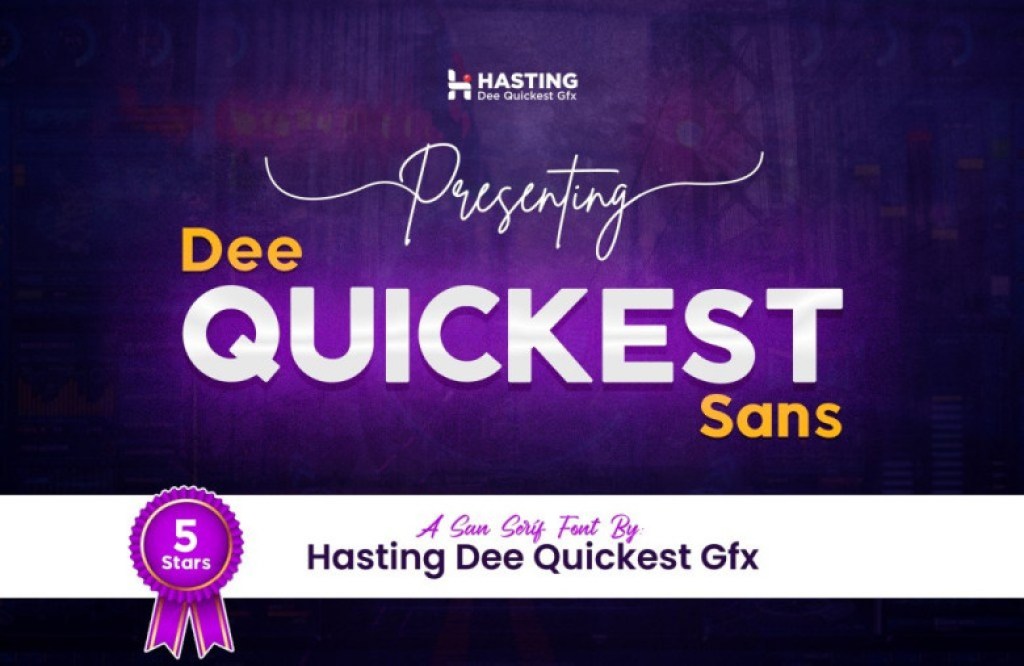
Dee Quickest Sans Font [1]
Dee Quickest Sans Font
Dee Quickest Sans embodies the pinnacle of modern typographic design, masterfully fusing razor-sharp precision with minimalist elegance. This sans-serif typeface is built on a foundation of geometric clarity and balanced proportions, resulting in exceptional legibility and a clean, sophisticated aesthetic. Its 'quick' nature refers to its dynamic, efficient letterforms that convey speed and intelligence, making it ideal for technology brands, financial institutions, contemporary editorial design, and user interface projects. Every glyph is meticulously crafted to ensure harmony and consistency, whether set at small sizes in dense paragraphs or large in impactful headlines. Choose Dee Quickest Sans to deliver your message with unwavering accuracy, modern flair, and timeless minimalist style.